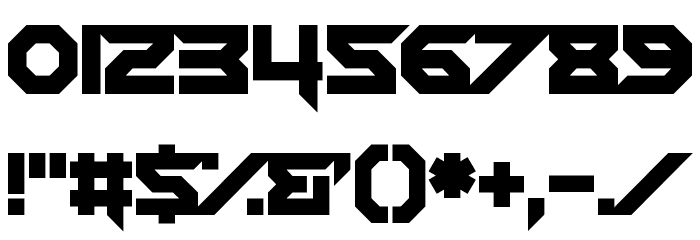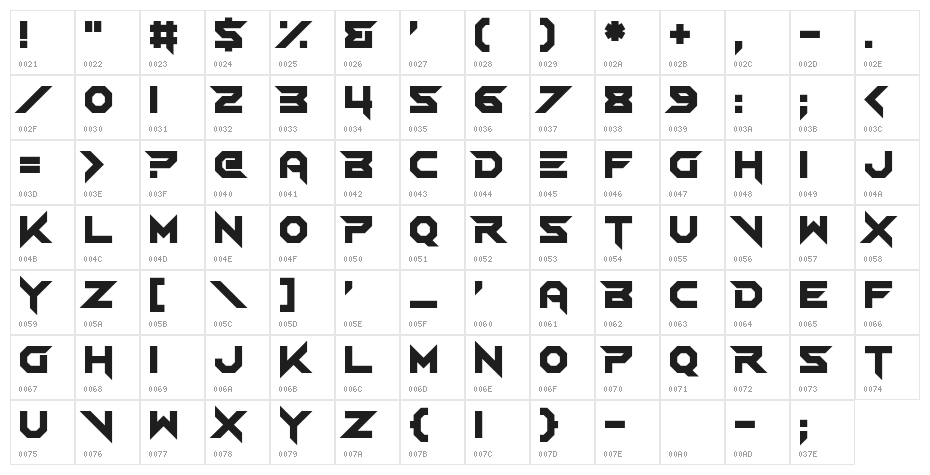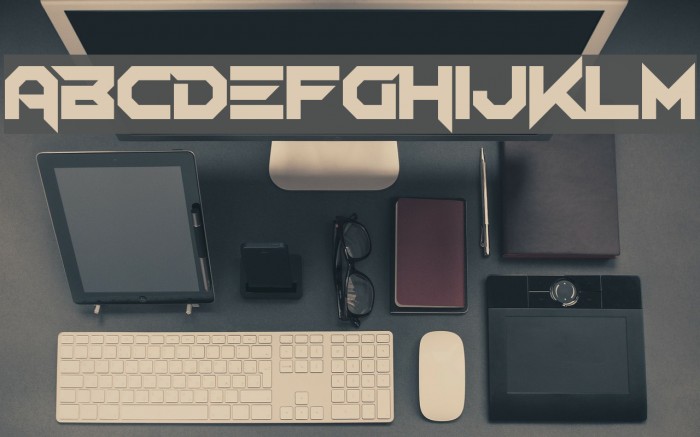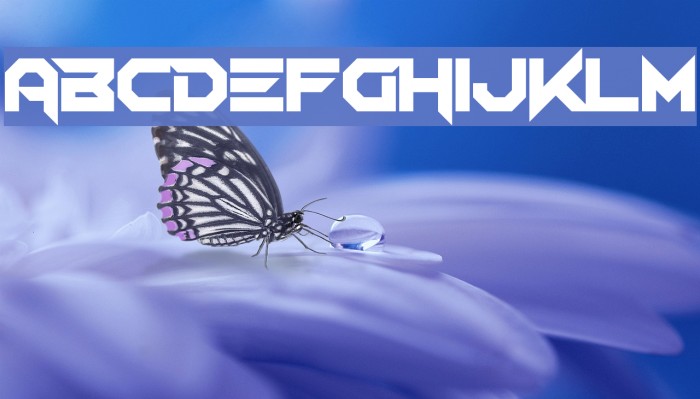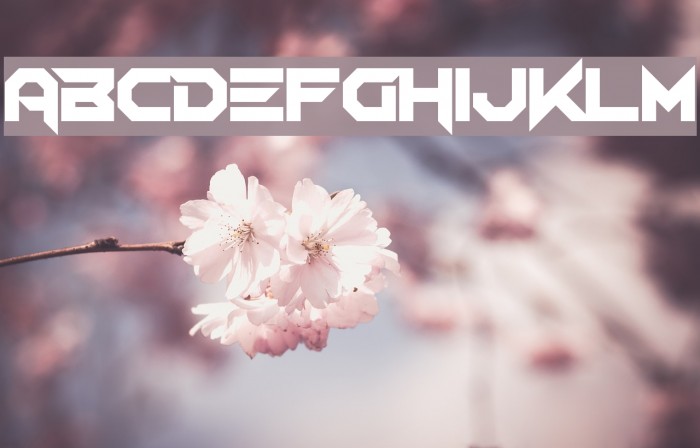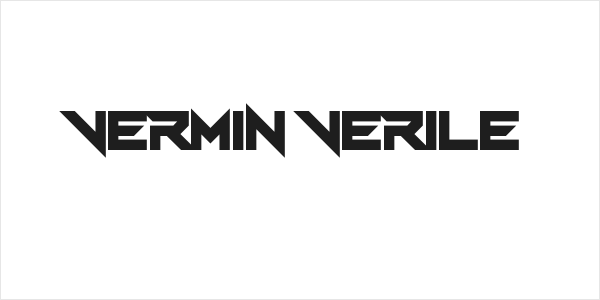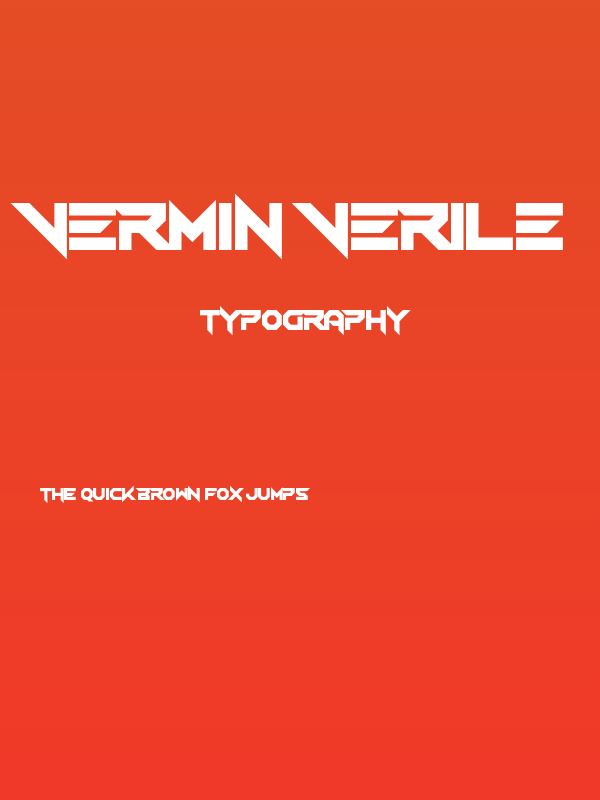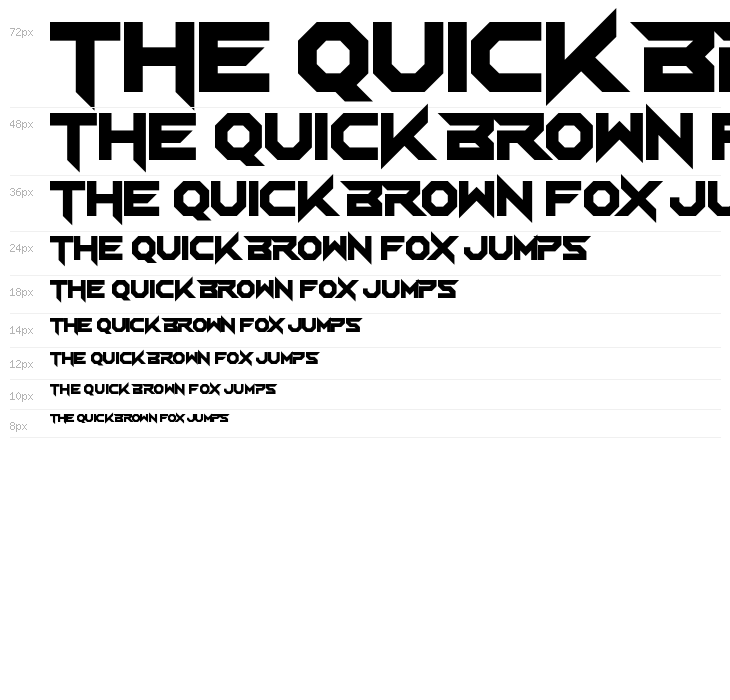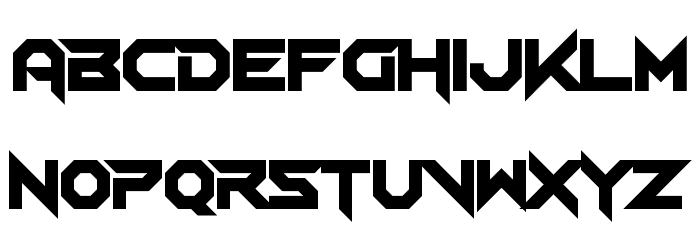
Vermin Verile Font
Vermin Verile Description
This font features a bold, geometric design with sharp angles and a futuristic aesthetic. The characters are constructed with thick lines and distinct edges, creating a strong visual impact. Each letter and number is designed with a consistent angular style, making it ideal for projects that require a modern and edgy look. The font's unique structure and bold presence make it stand out, suitable for attention-grabbing headlines or logos. Its angular design gives it a tech-inspired feel, perfect for digital or sci-fi themed projects.
Overall StyleFuturistic
Proposed ProjectsIdeal for sci-fi themed projects, tech company logos, video game titles, and futuristic posters.